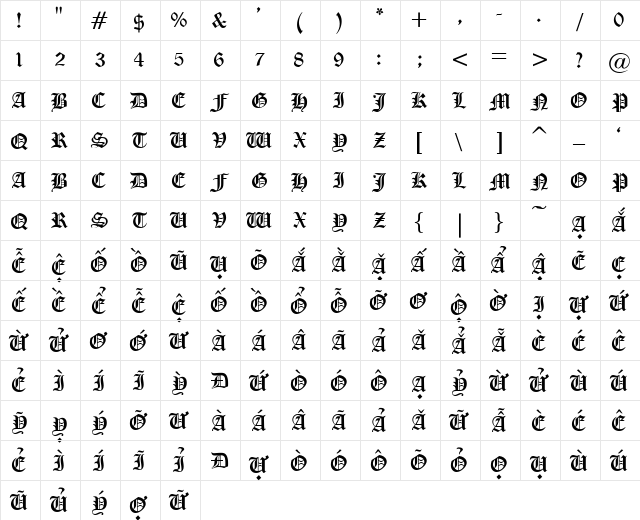
VI Lꠓa H Regular Font Preview
VI Lꠓa H Regular
VI Lꠓa H Regular Font Details
Design Context for VI Lꠓa H Typeface
VI Lꠓa H is a composed and adaptable typeface that performs quietly and consistently across a wide range of design contexts.